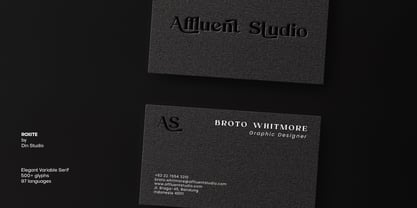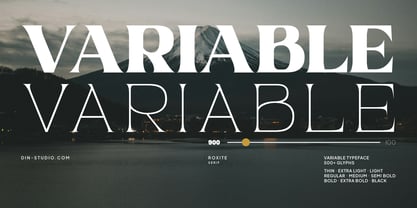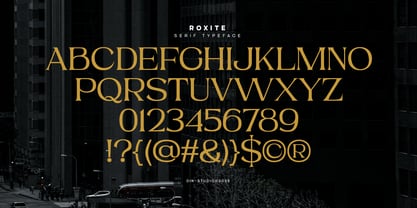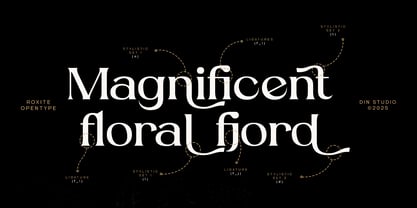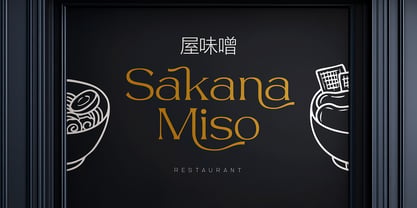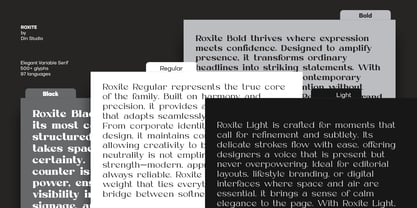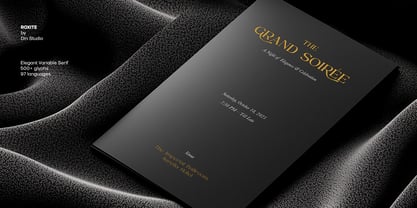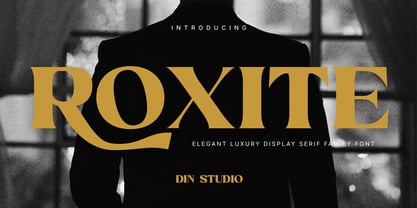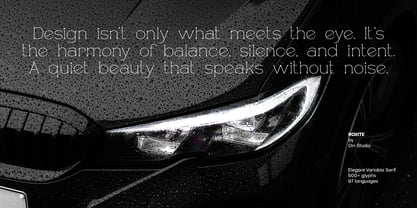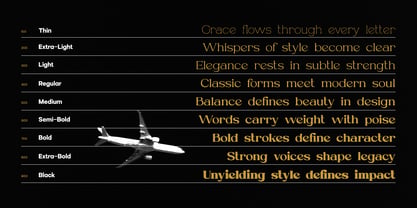
Roxite
The Roxite Font Family was designed by Donis Miftahudin and published by Din Studio. Roxite contains 9 styles and family package options. More about this family
Roxite is an elegant serif display font family. Every curve, serif, and detail in Roxite is meticulously crafted to reflect a sense of refinement and high-end style—making it the perfect choice for designers seeking to create a luxurious visual identity. With its graceful proportions and modern serif design, Roxite effortlessly balances classic beauty and contemporary aesthetics. The font family includes 9 weights and styles, allowing you to adapt it seamlessly to any creative need. In addition, enjoy the features here. Features: Multilingual Supports PUA Encoded Numerals and Punctuations Roxite fits in branding, quotes, name cards, apparels, logos, posters, and many more designs. Find out more ways to use this font by taking a look at the font preview. Thanks for purchasing our fonts. Hopefully, you have a great time using our font. Feel free to contact us anytime for further information or when you have trouble with the font. Thanks a lot and happy designing.